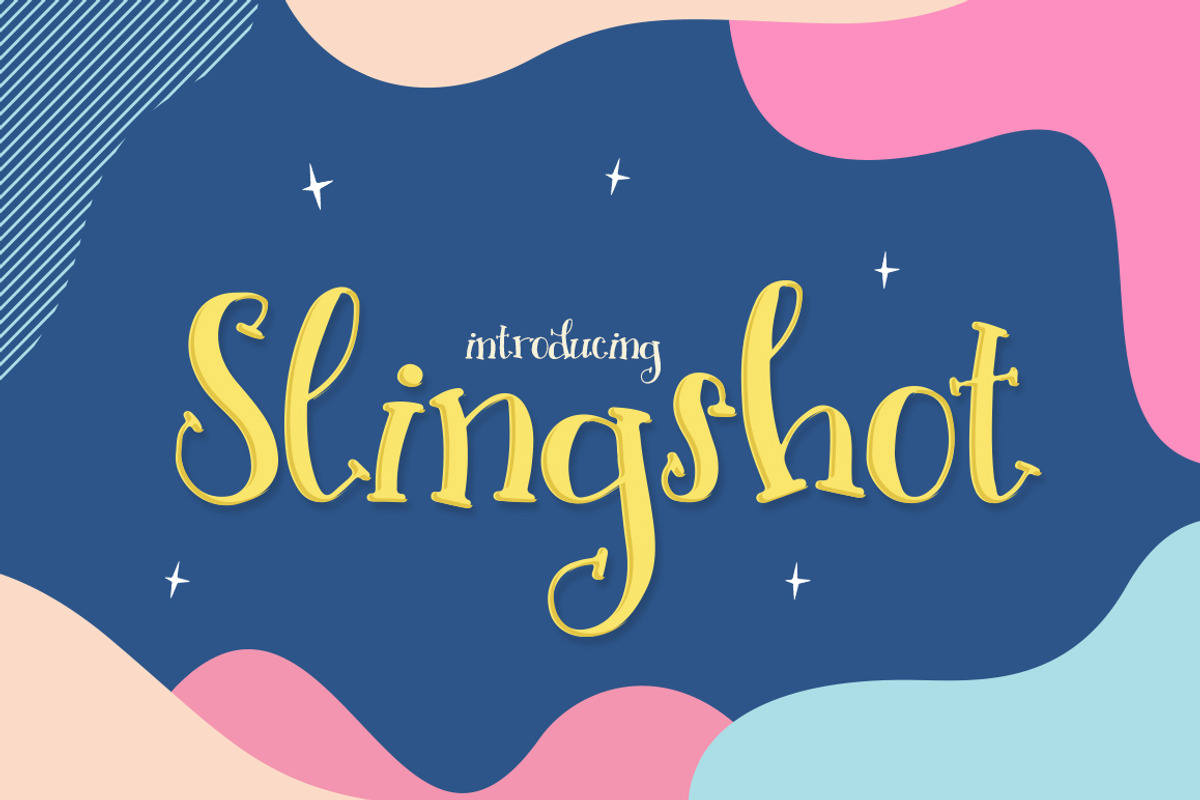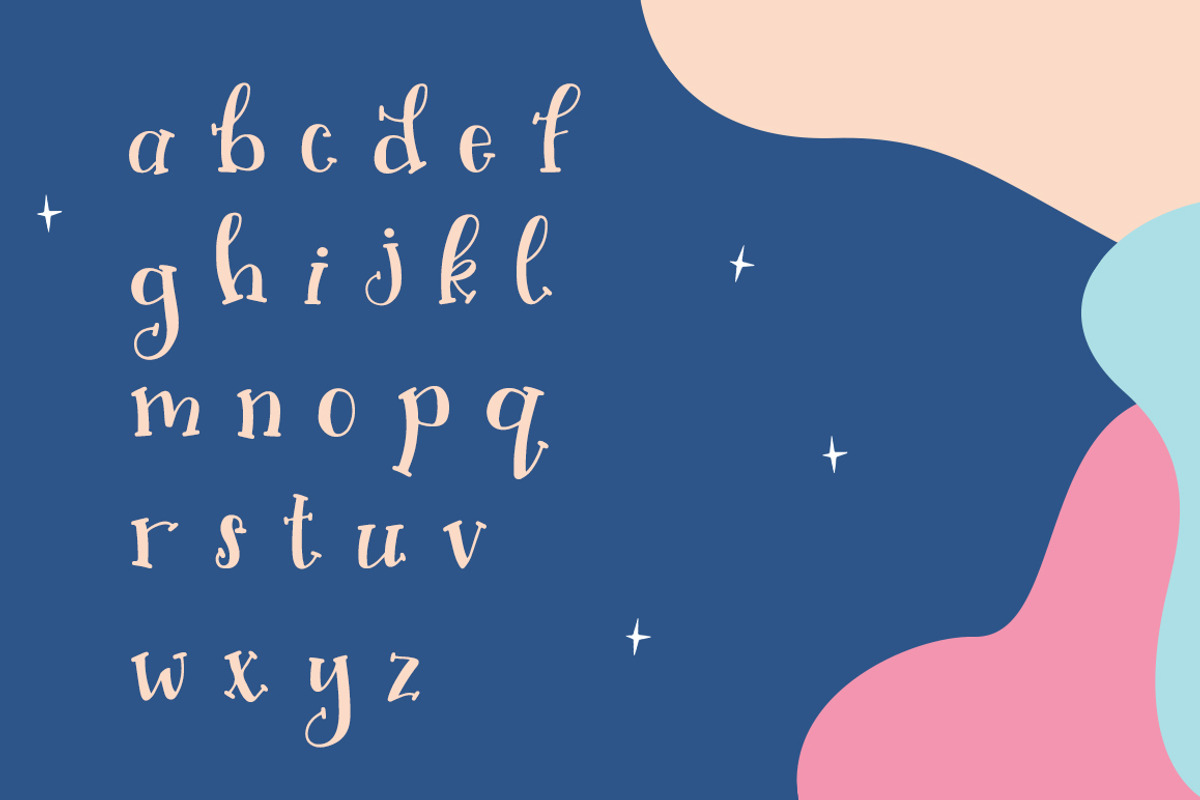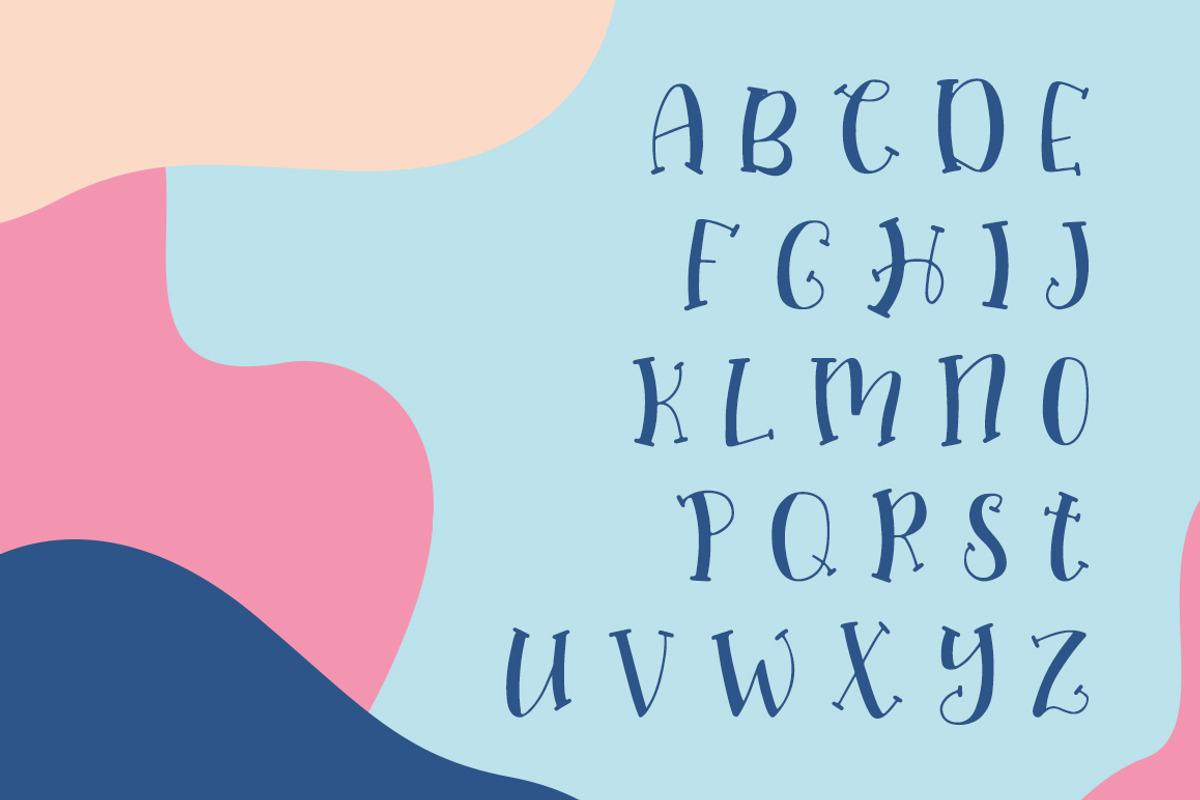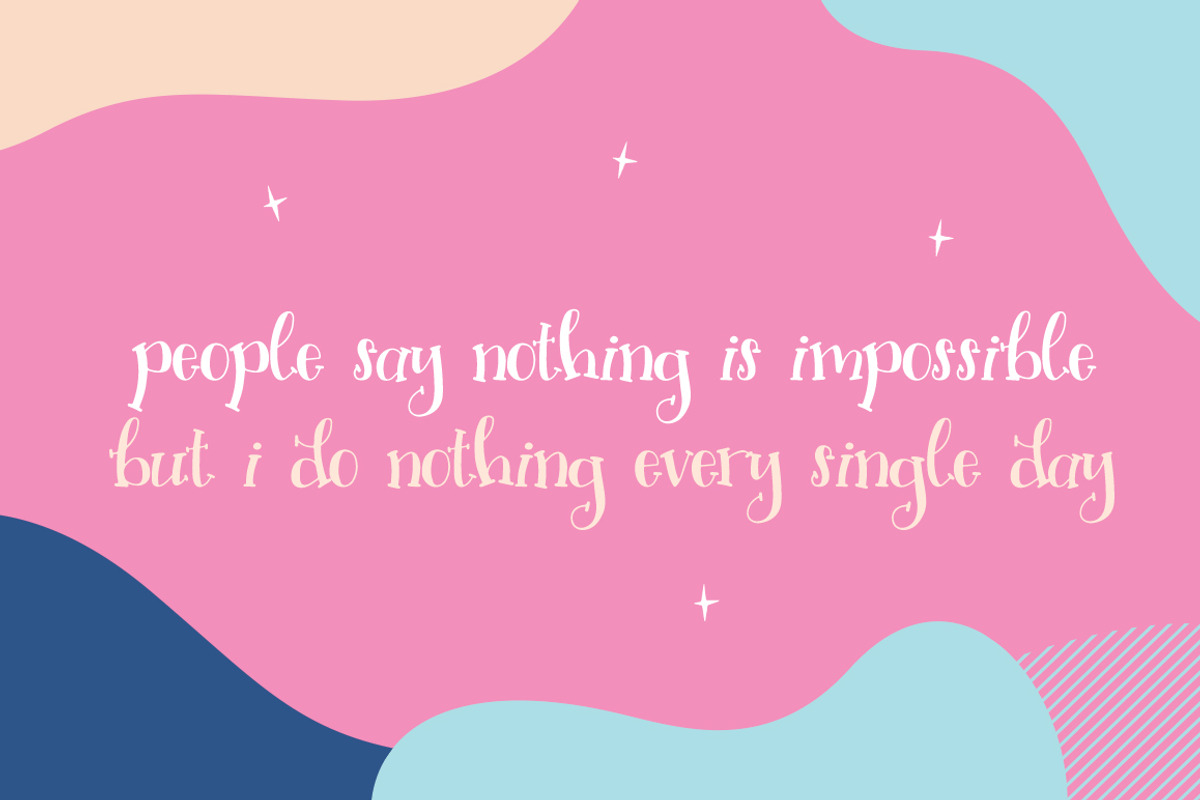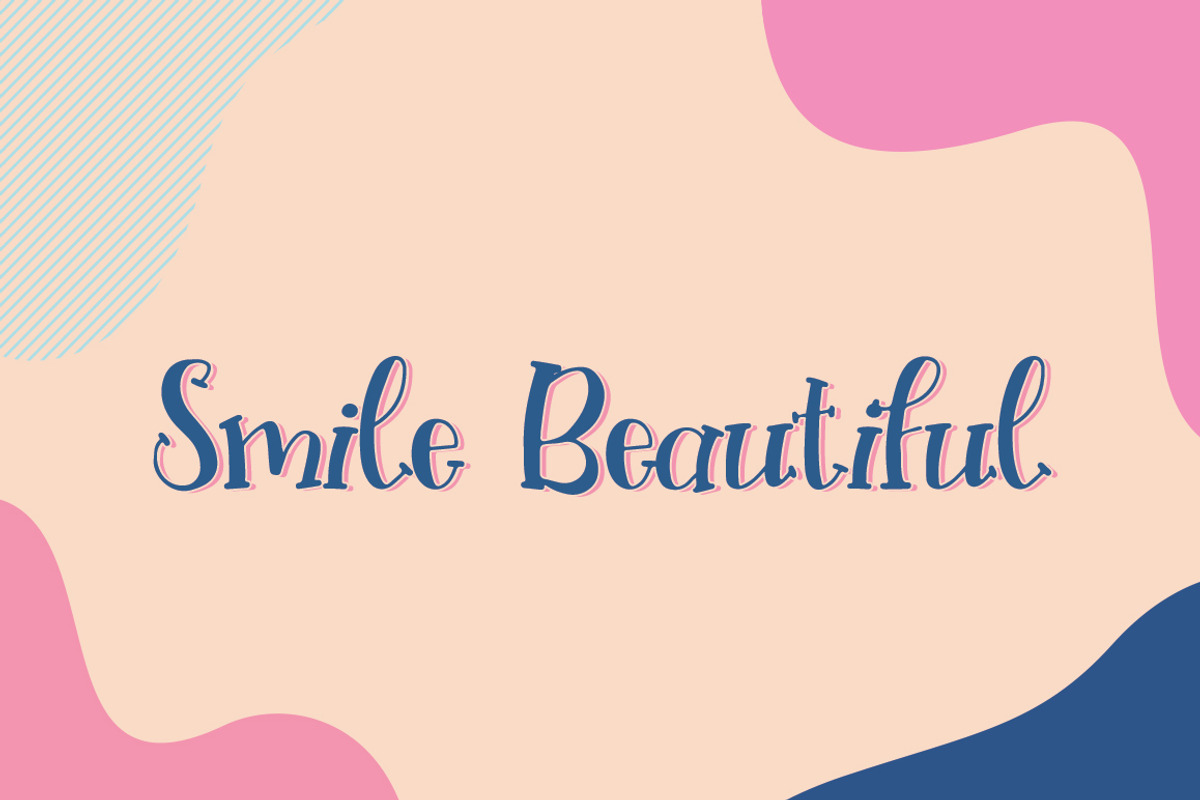
Slingshot Font
Why Slingshot Font is worth a look
Slingshot Font by Salt & Pepper Designs fits naturally into Branding, posters, packaging, typography.